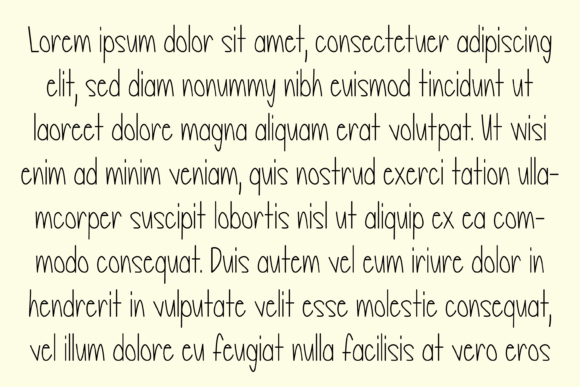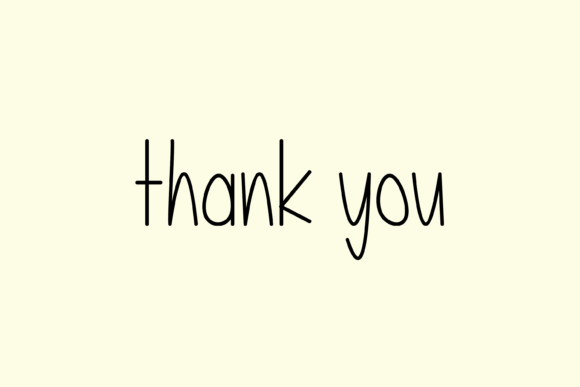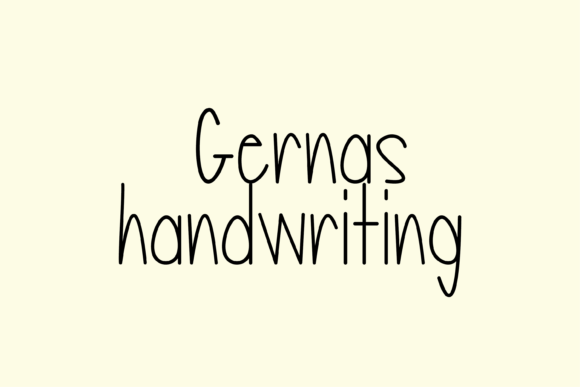
Gernas Font: The Perfect Addition to Your Design Projects
Are you looking for a font that can add a touch of whimsy and friendliness to your designs? Look no further than Gernas Font! This simple and approachable handwritten font is perfect for a wide range of design projects, from logos and wedding invitations to quotes, advertisements, and more.
The Characteristics of Gernas Font
Gernas Font is a unique and eye-catching typeface that is sure to brighten up any design. Its whimsical and slightly quirky nature makes it perfect for designers who want to add a bit of personality to their work. The font’s simple and friendly design ensures that it is easy to read and understand, making it perfect for use in a variety of contexts.
What Makes Gernas Font So Versatile?
One of the things that sets Gernas Font apart from other fonts is its versatility. This font can be used in a wide range of design projects, including:
- Logos: Gernas Font is perfect for creating unique and memorable logos that will help your brand stand out.
- Wedding Invitations: The font’s whimsical nature makes it perfect for use in wedding invitations and other formal event materials.
- Quotes: Gernas Font is a great choice for use in quotes and other inspirational materials.
- Advertisements: The font’s friendly and approachable nature makes it perfect for use in advertisements and other marketing materials.
- Print: Gernas Font can be used in a variety of print materials, including magazines, brochures, and more.
Why Designers and Crafters Love Gernas Font
Designers and crafters love Gernas Font for a variety of reasons. Here are just a few:
- Easy to Read: Gernas Font is easy to read, even at small sizes, making it perfect for use in a variety of contexts.
- Unique and Eye-Catching: The font’s whimsical nature makes it stand out from more traditional fonts.
- Versatile: Gernas Font can be used in a wide range of design projects, making it a great addition to any designer’s toolkit.
- High-Quality: The font is designed to be high-quality and professional, making it perfect for use in both personal and commercial projects.
How to Use Gernas Font in Your Design Projects
Using Gernas Font in your design projects is easy! Here are a few tips to get you started:
- Experiment with Different Sizes: Gernas Font looks great at a variety of sizes, so don’t be afraid to experiment to find the perfect size for your project.
- Pair it with Other Fonts: Gernas Font pairs well with a variety of other fonts, so try pairing it with some of your favorite fonts to create a unique and eye-catching design.
- Use it in Combination with Images: Gernas Font looks great when used in combination with images, so try incorporating it into your design projects to add an extra layer of interest.
Gernas Font is a unique and versatile font that is perfect for designers and crafters who want to add a touch of whimsy and friendliness to their designs. With its simple and approachable design, this font is easy to read and understand, making it perfect for use in a wide range of design projects. Whether you’re creating logos, wedding invitations, quotes, advertisements, or more, Gernas Font is a great choice. So why not give it a try and see the difference it can make in your designs?